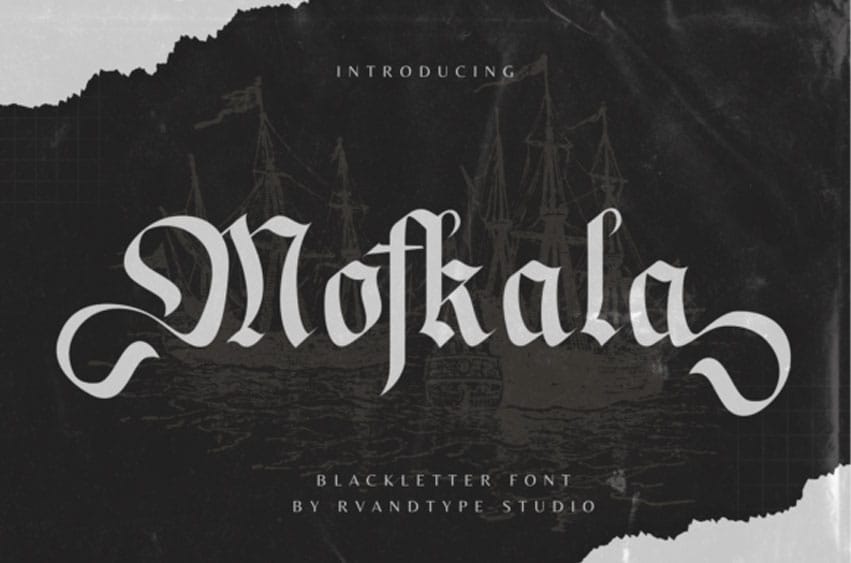
Mofkala Font is a fusion of traditional Gothic allure and modern sensibilities. This blackletter display font is visually dynamic, commanding attention and exuding a strong, distinctive personality. It effortlessly infuses a radical undertone into music posters spanning genres from metal, punk, to indie rock. Mofkala also lends an audacious edge to book covers and magazine layouts, as well as packaging, seeking to make a memorable impression. It’s a game-changer for those looking to create striking social media graphics.
Whether you’re channeling a fervor rebellion or a dramatic aesthetic, Mofkala stands ready to embolden your designs with an undeniable presence. With Mofkala as your typography choice, your creations are destined to stand out, radiating confidence.